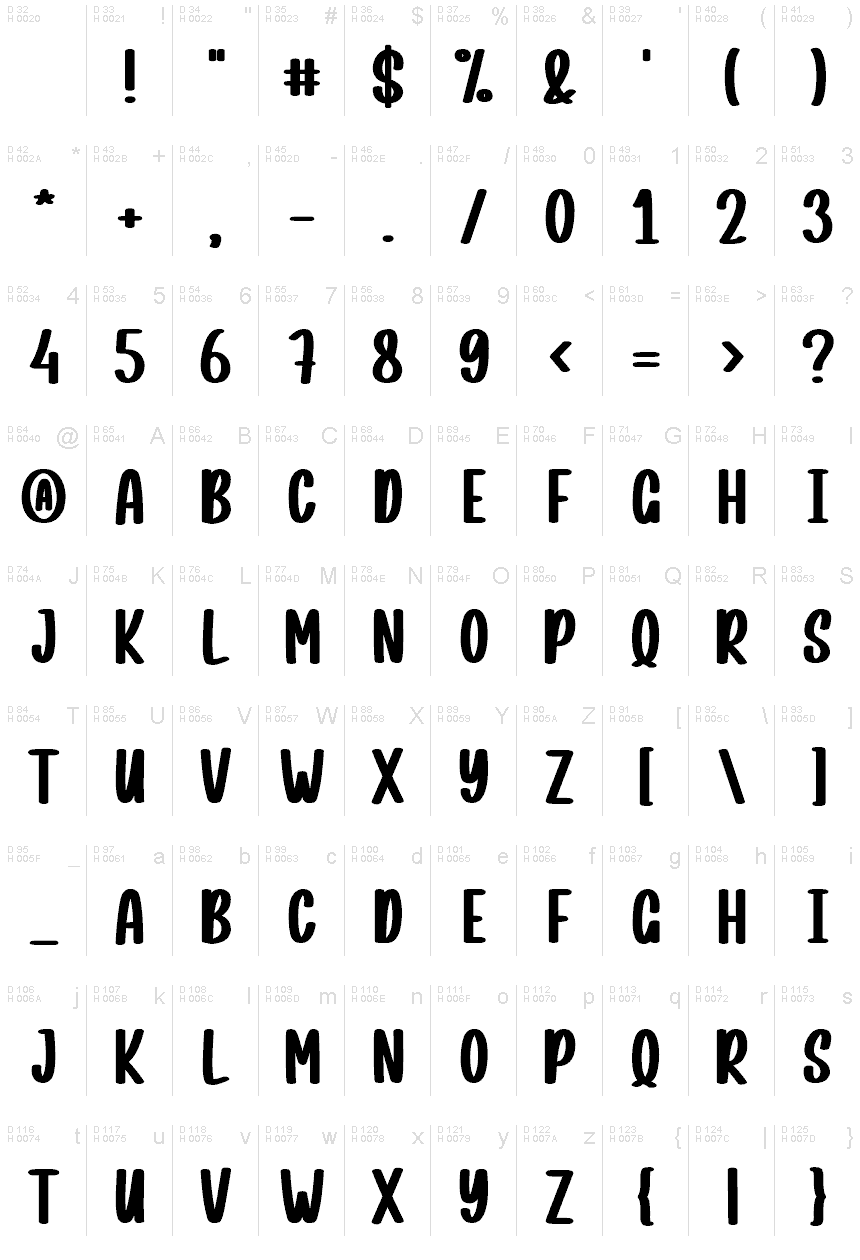
Rainbow After Rain Sans
Rainbow After Rain Sans font by Ainun Jinan combines the charm of handwritten styles with a modern, geometric aesthetic. This condensed font offers an artistic and expressive feel, presenting a unique balance between simplicity and creativity with its smooth lines.
From greeting cards to logo design, posters, apparel prints packaging design, banners typography & more– this font makes attracts attention everywhere it appears for free!